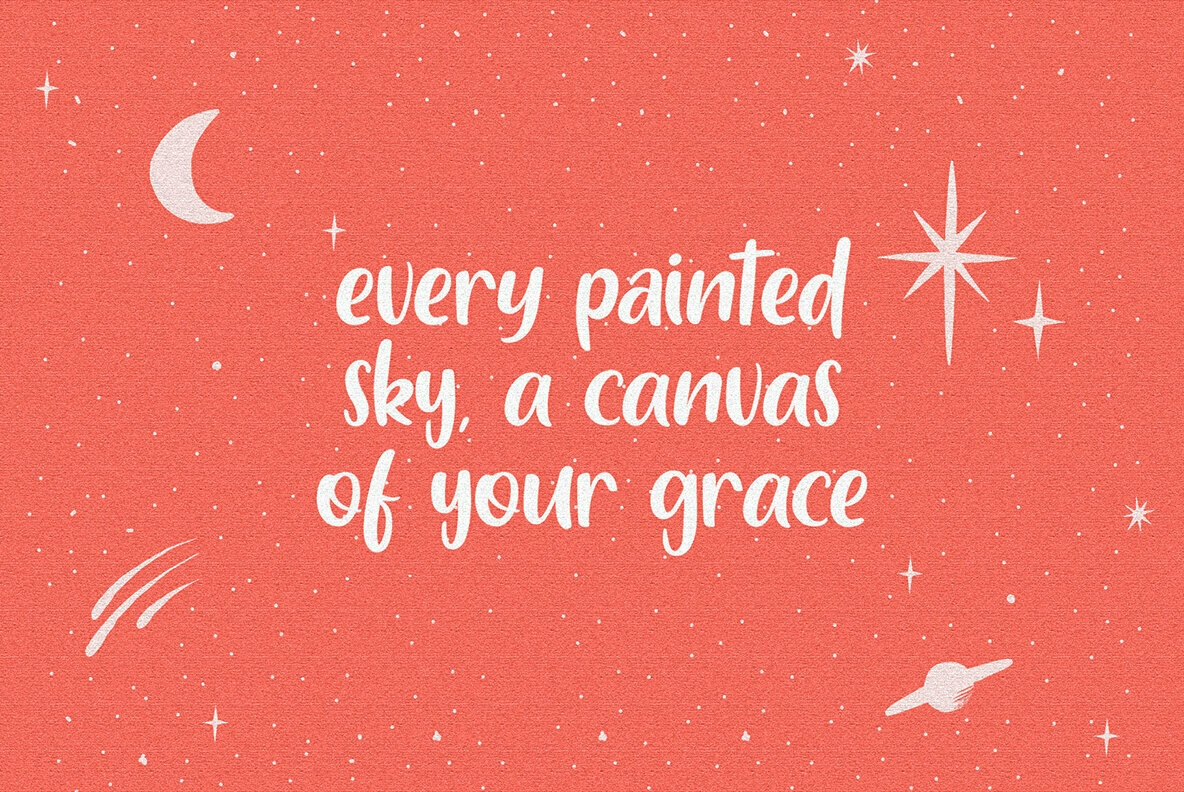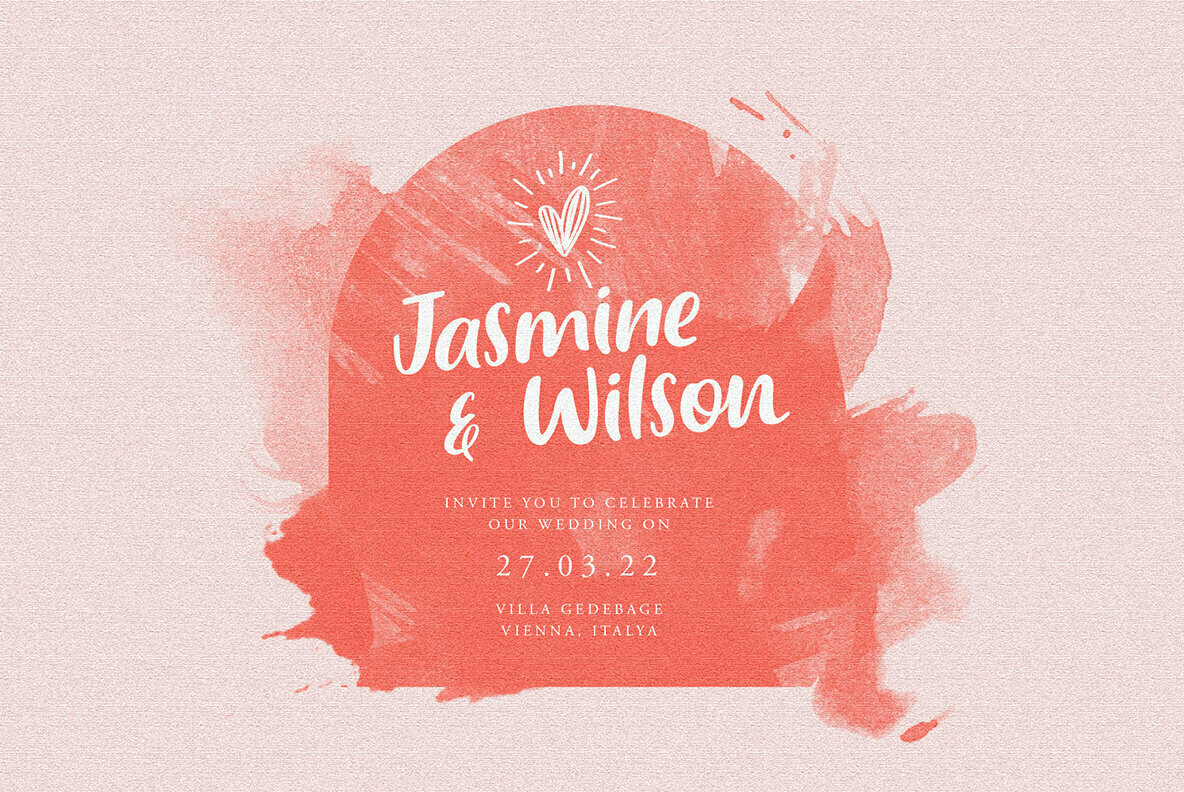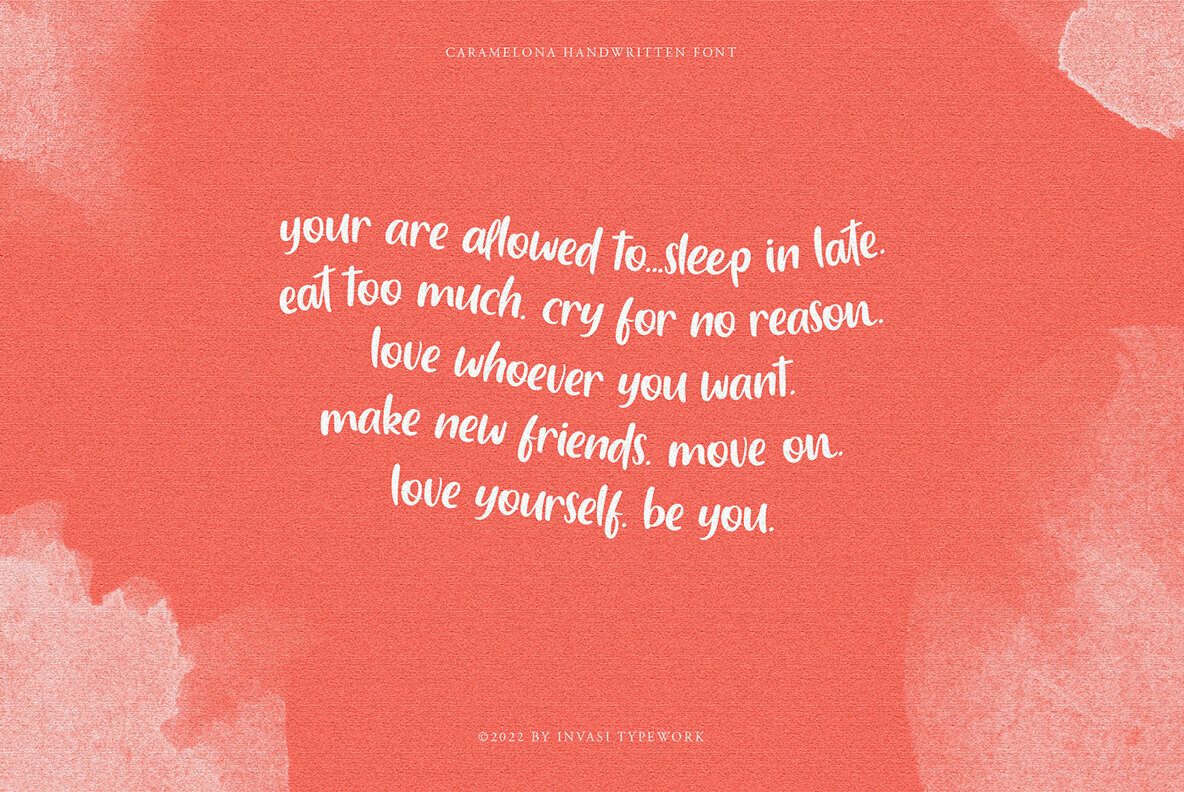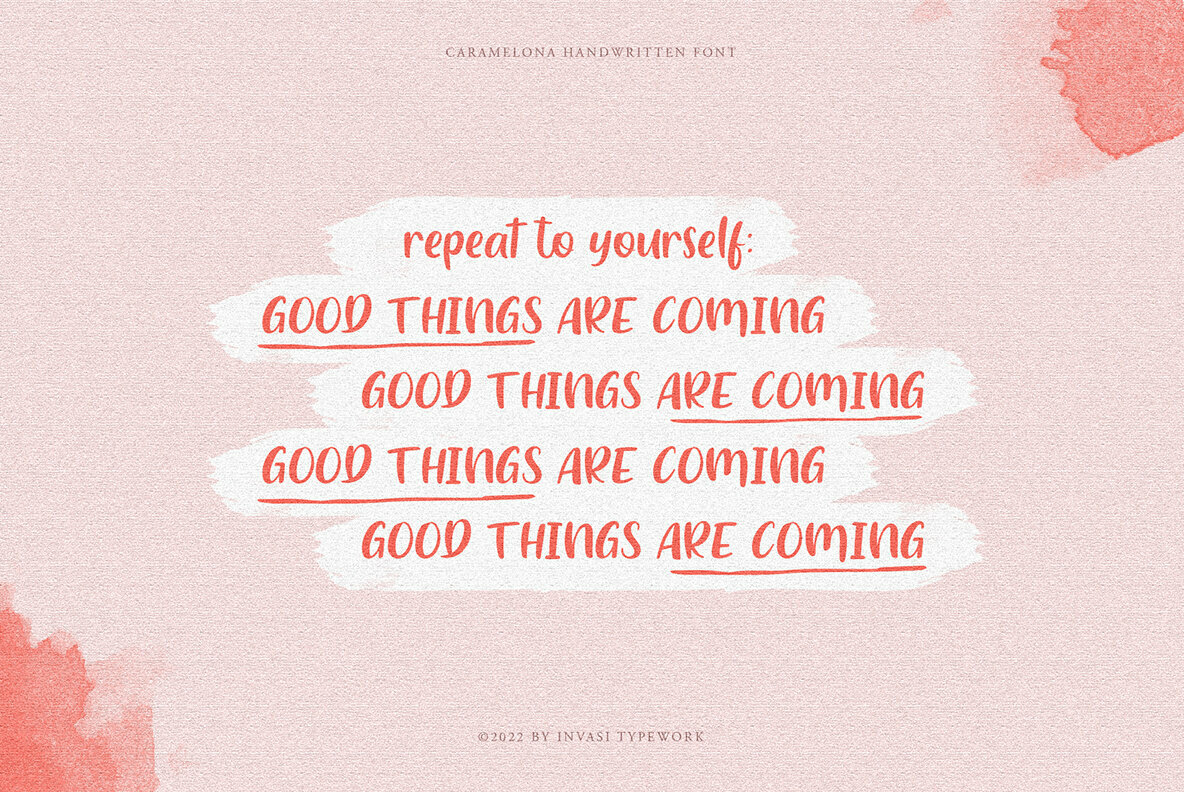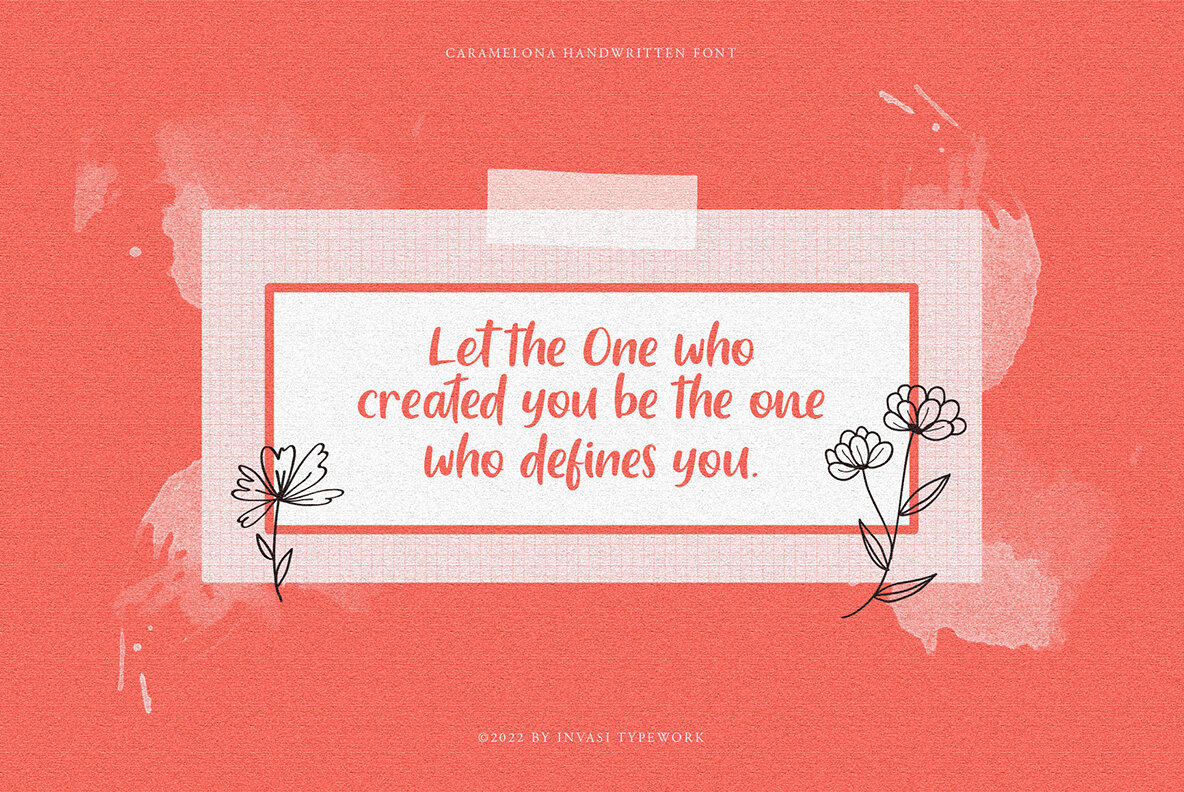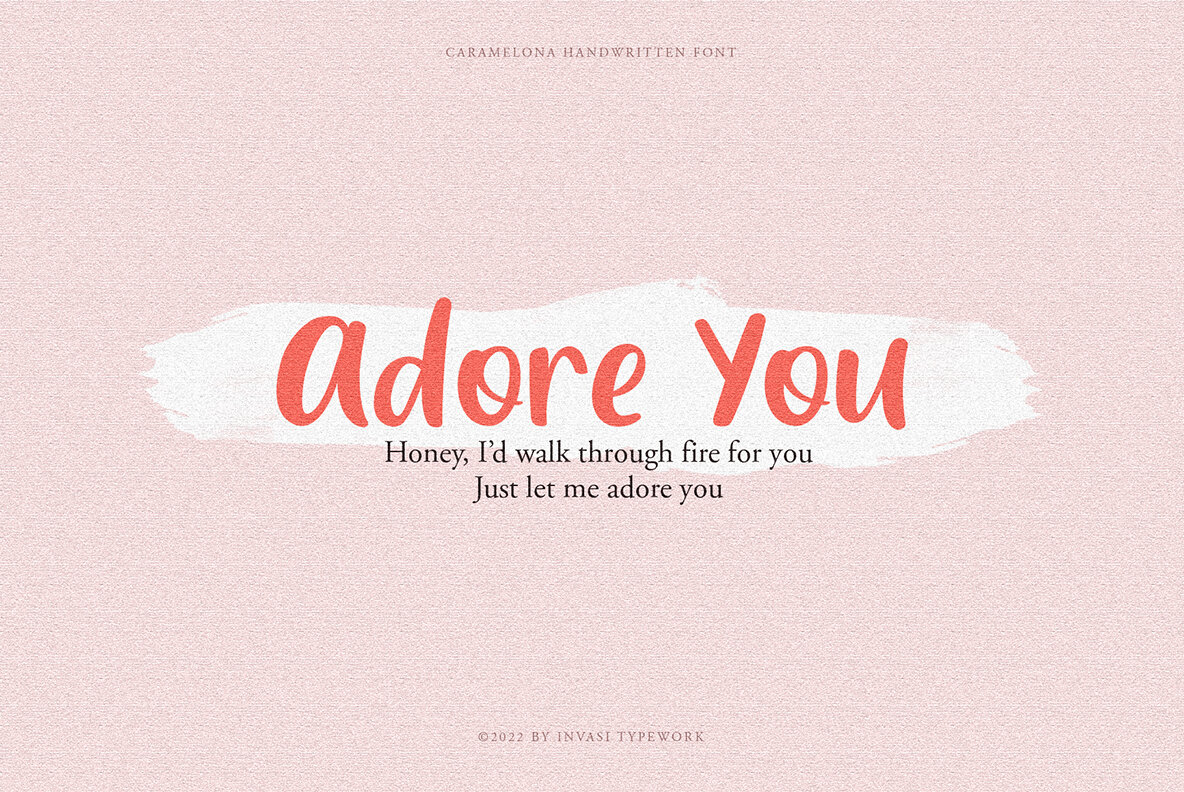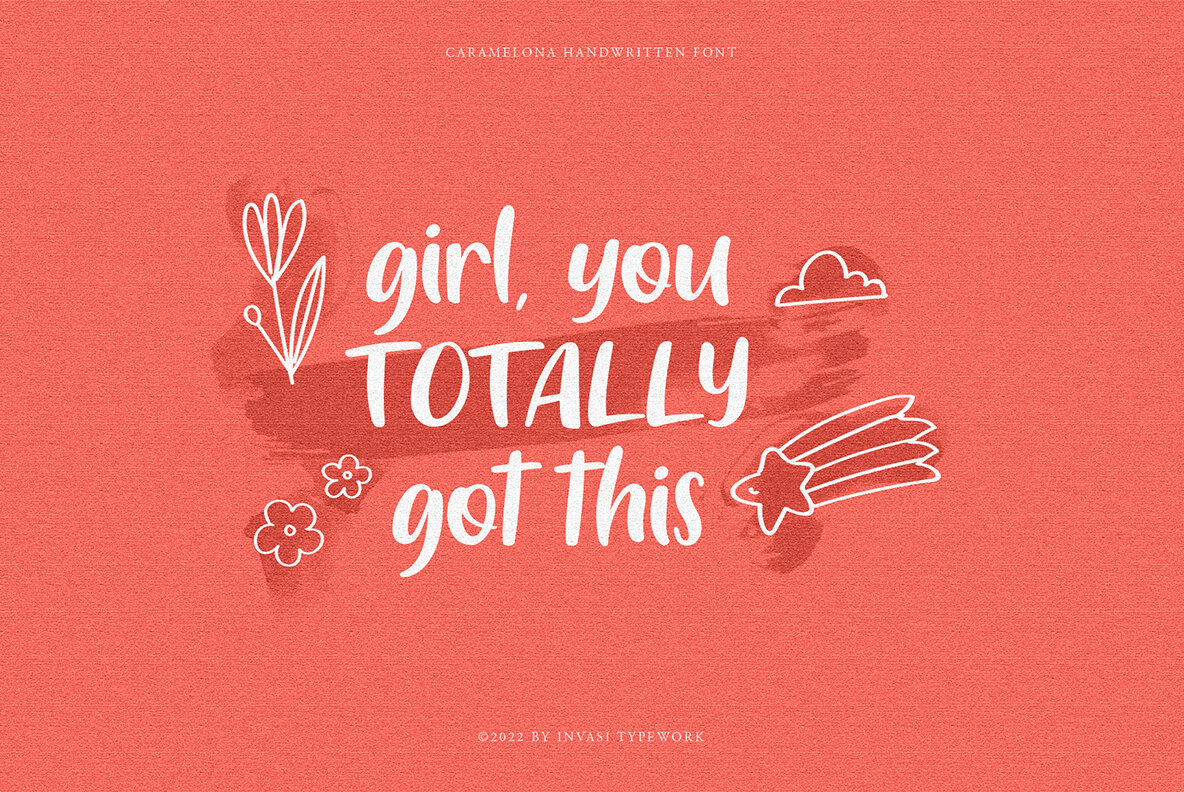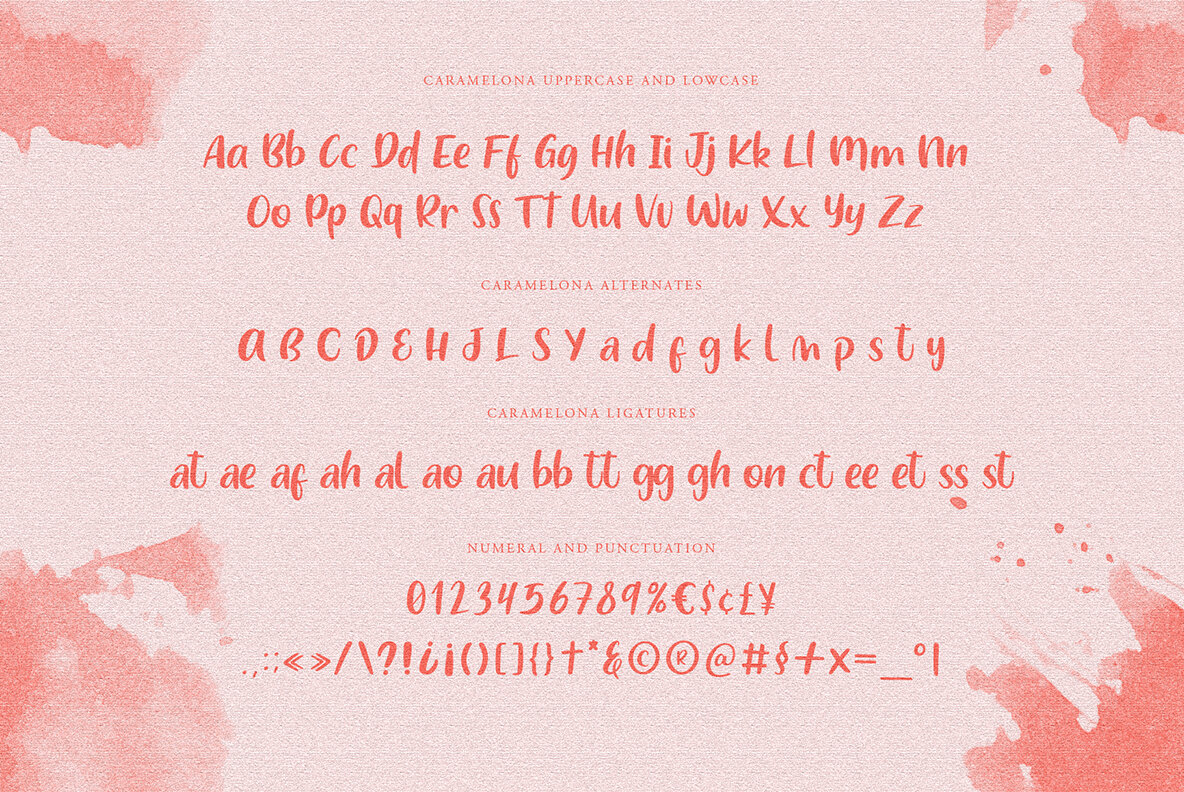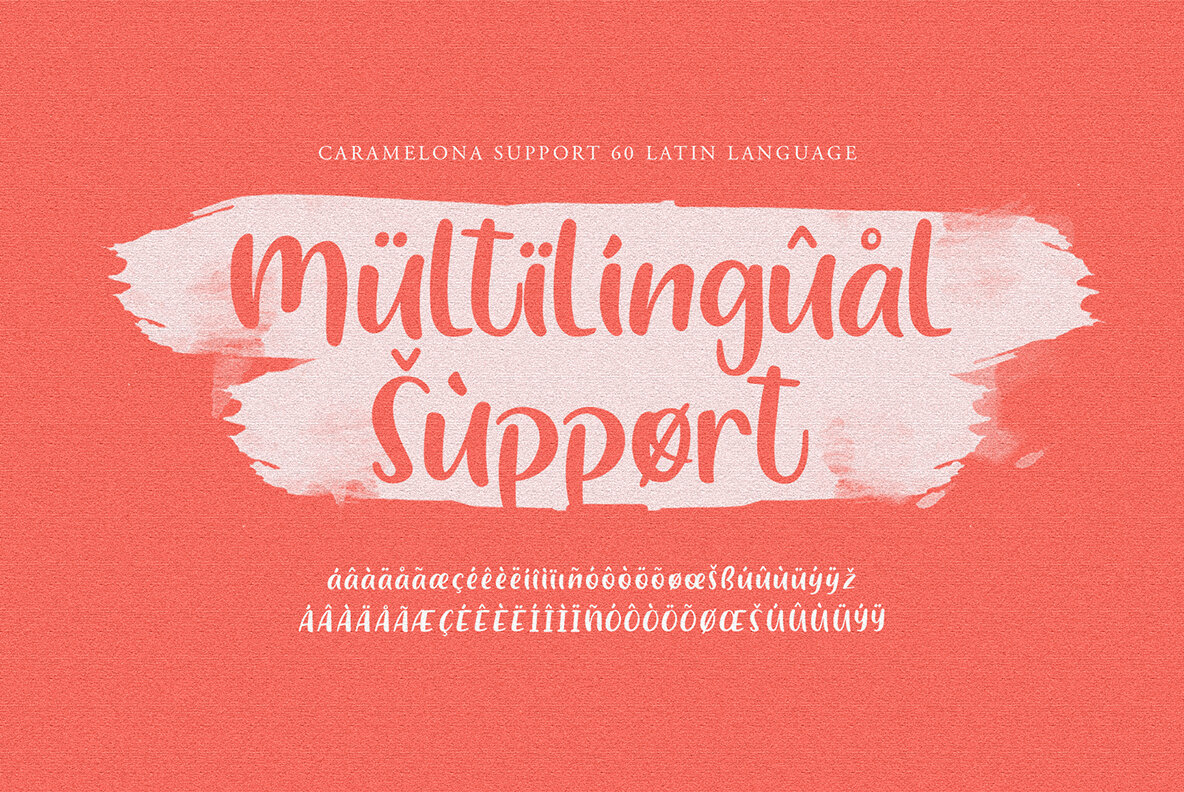
Caramelona Font
Caramelona Regular
Caramelona is a handwritten organic font that is perfect for branding, signatures, wedding invitations, promotions, product packaging, and more. Caramelona is a modern, clean, authentic font. Caramelona comes with ligatures, alternates, and supports 60+ Latin-based languages.
- Total 230 Glyph
- Numerals & Punctuation
- Alternates and Ligatures
- Multilanguage Supports 60+ Latin based languages